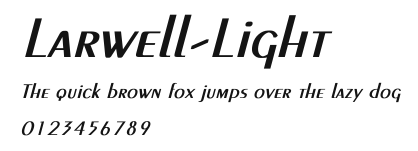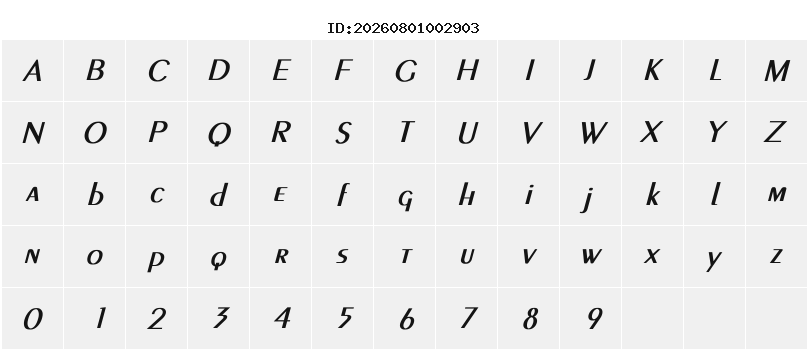
• Font Name: Larwell-Light
• Full Font Name: Larwell-Light Bold Italic
• PostScript Name: Larwell-Light-BoldItalic
About Larwell-Light.ttf
Larwell-Light.ttf is a modern, elegant sans-serif font designed for ultimate readability and visual harmony. Perfect for branding, headlines, web design, and print materials.